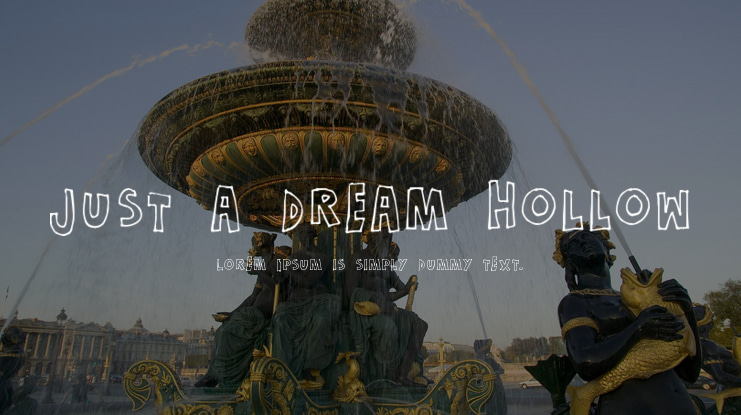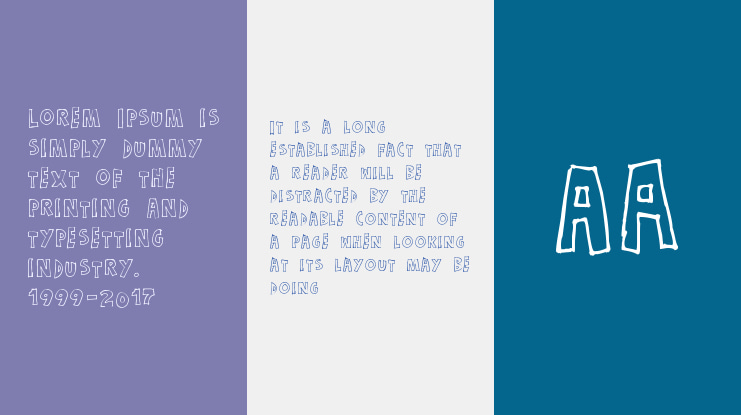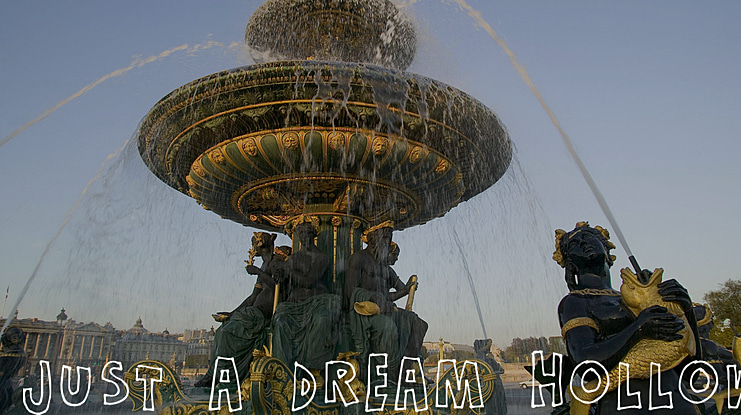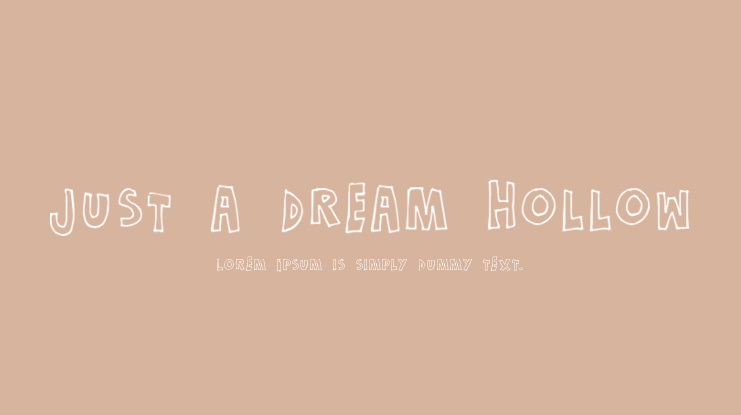
Just a dream Hollow Font Family
Comes in both solid and hollow!
This font is meant to look scribbled, and that's why I didn't remove the occasional inkblobs. I didn't want the font to look too "clean" but more like something that was written in a hurry! (And believe me, it was!)